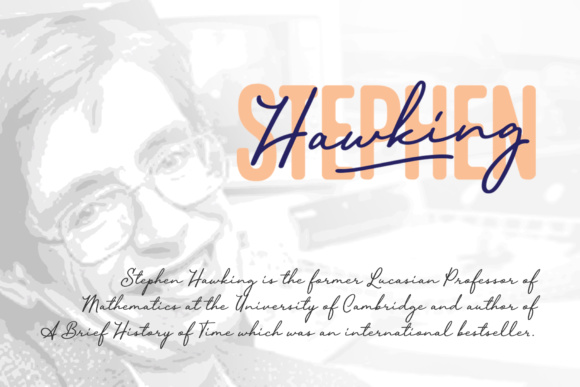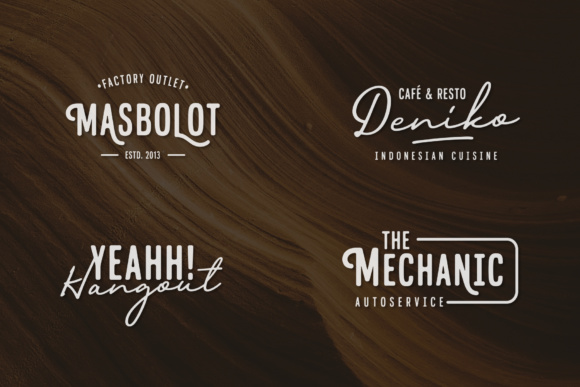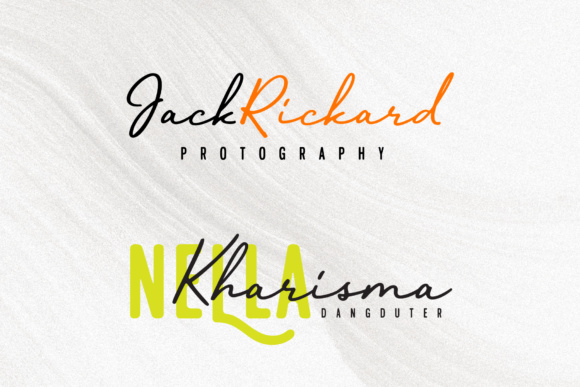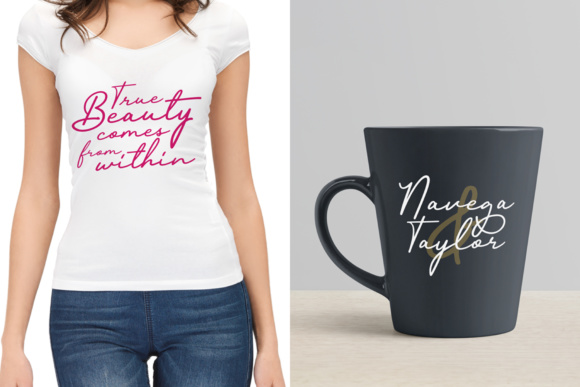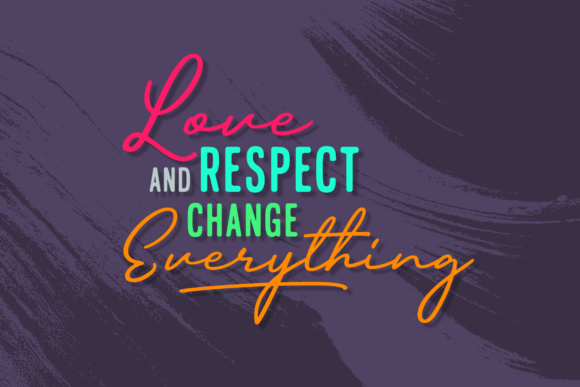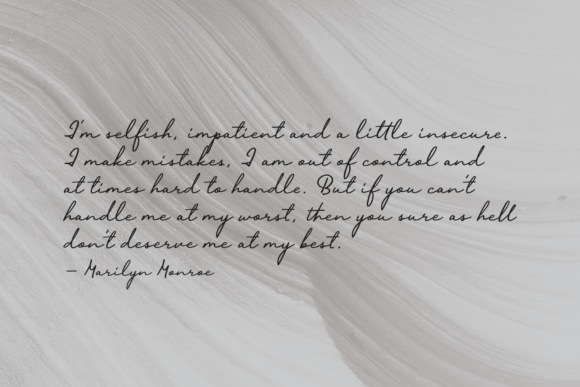
Introduction to Lucyna Font
Lucyna Script is a handwrittenduo that gives a relaxed yet beautiful style in any design.
Lucyna Sans is a sans serif font specially paired with Lucyna Script Thick but rounded shapes give a strong but not rigid impression, and these fonts can mix and match to create a casual yet classy design.